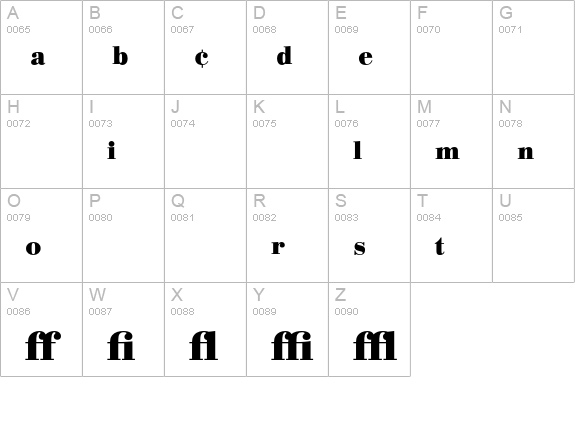
Bodoni BE Bold Expert Font Details
Bodoni BE Bold Expert is a strong, high-contrast variant in the Bodoni typeface family \xE2\x80\x94 well suited to headlines, attention-grabbing titles, and strong calls-to-action.
Bodoni BE Bold Expert font exudes elegance and sophistication with its sleek, modern design. The bold strokes and sharp serifs make a powerful statement, perfect for headlines and branding materials. This font captures attention and demands to be noticed with its confident and authoritative presence. The Bodoni BE Bold Expert font is a versatile typeface that can be used across a wide range of design projects, from editorial layouts to packaging design. Its timeless appeal and classic aesthetic make it a popular choice among designers looking to add a touch of refinement to their work. And the best part? It is available for free download at FontsMarket.com. Now you can elevate your designs with this stunning font without breaking the bank. Don't miss out on the opportunity to enhance your projects with the Bodoni BE Bold Expert font today!